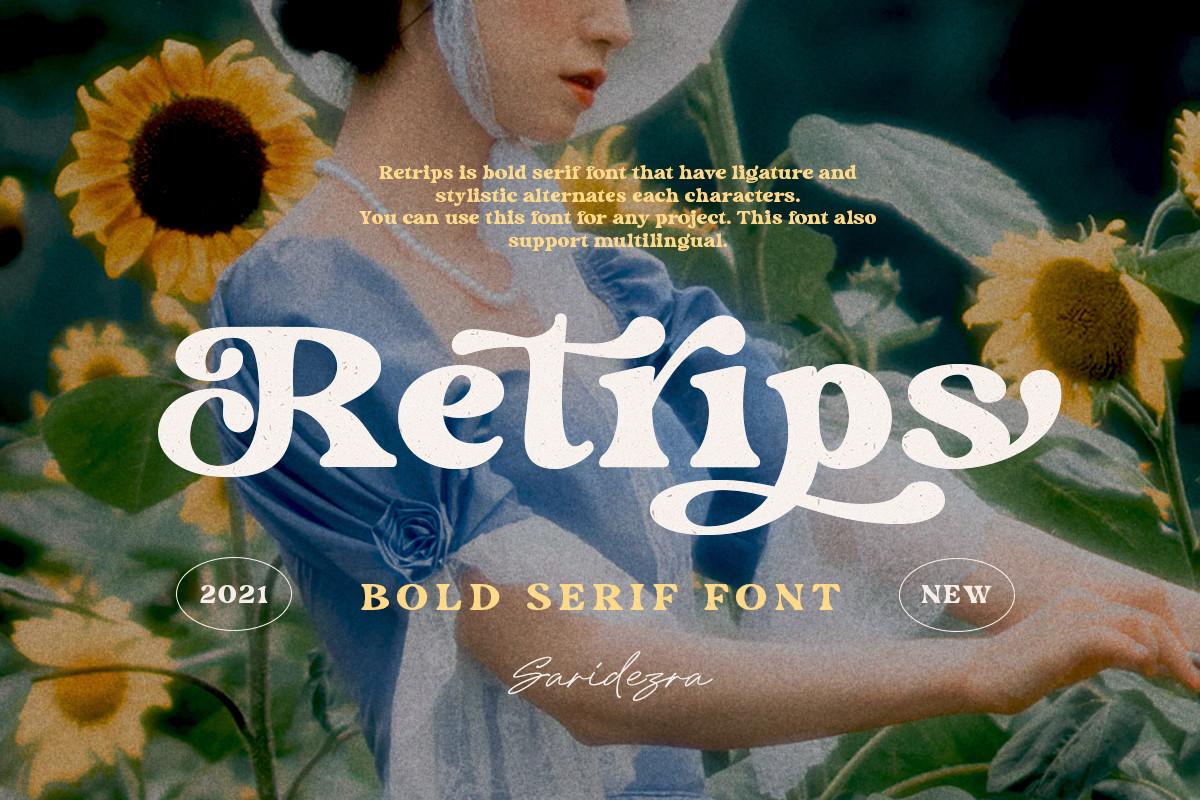
Retrips Font Description
Rettrips is a modern and charming serif font that perfectly combines a retro look with a modern flair. It looks playful and fun, and it would make a wonderful choice for almost any project! This font is PUA encoded which means you can access all of the glyphs and swashes with ease!